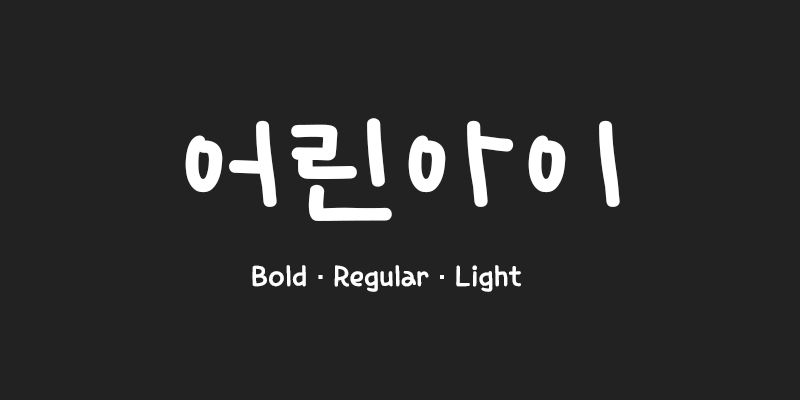
210 Eorinai Font Free Download
210 Eorinai Font Free Download is a bold and playful handwritten script typeface that brings a sense of fun and spontaneity to your designs. Featuring fluid curves and dynamic letterforms, this font is perfect for logos, branding, posters, greeting cards, and any creative project that requires an energetic, personal touch.